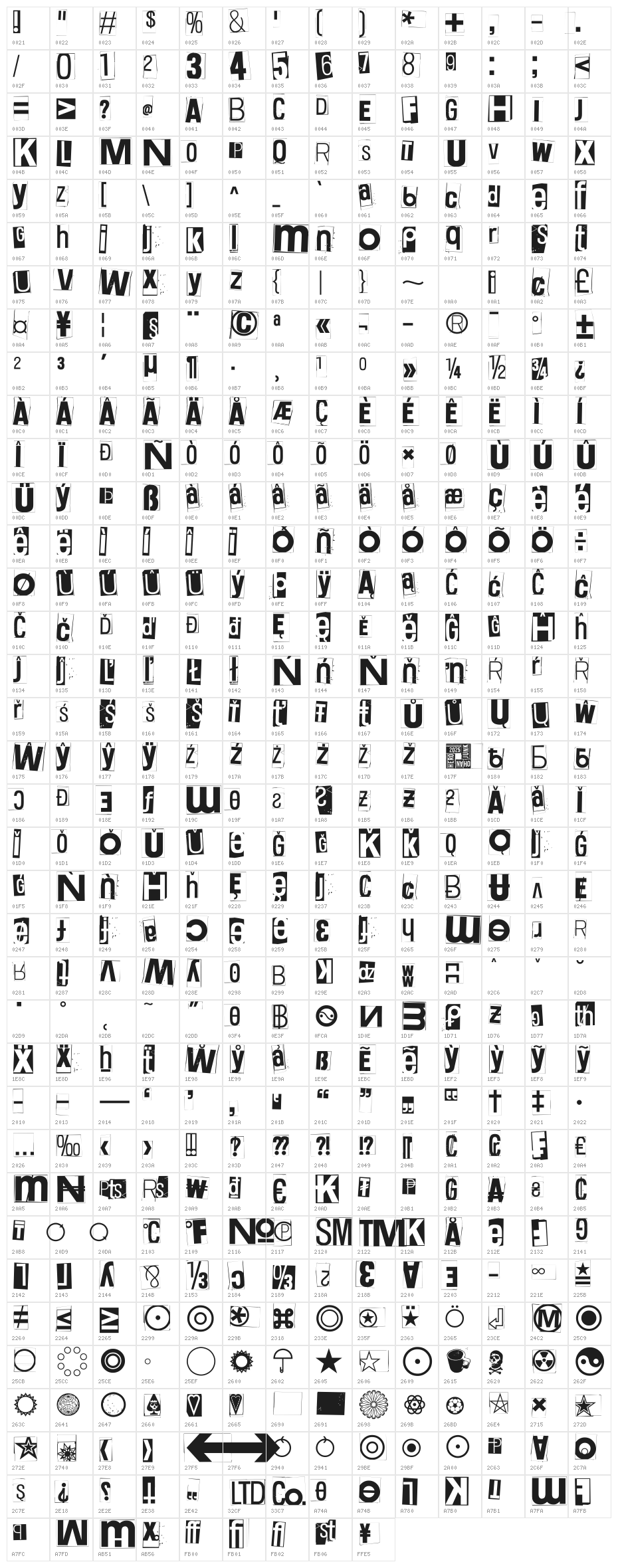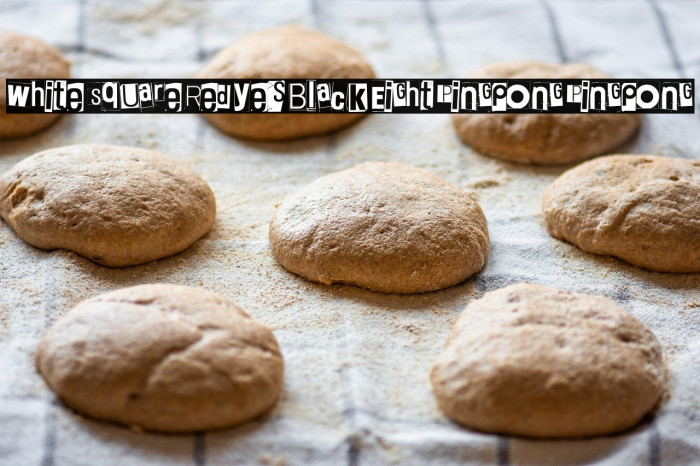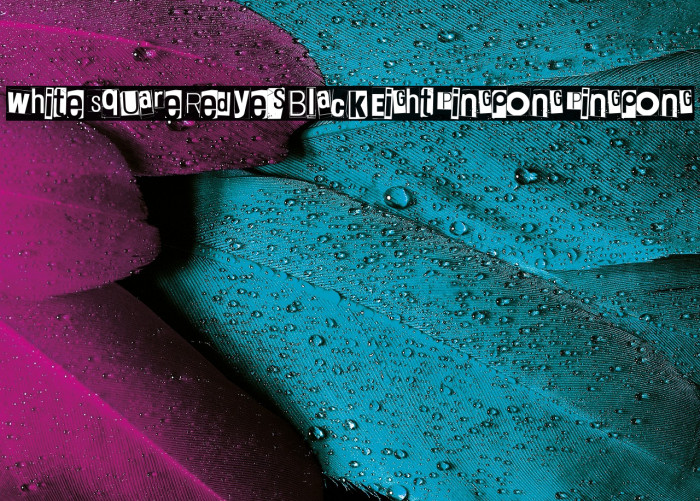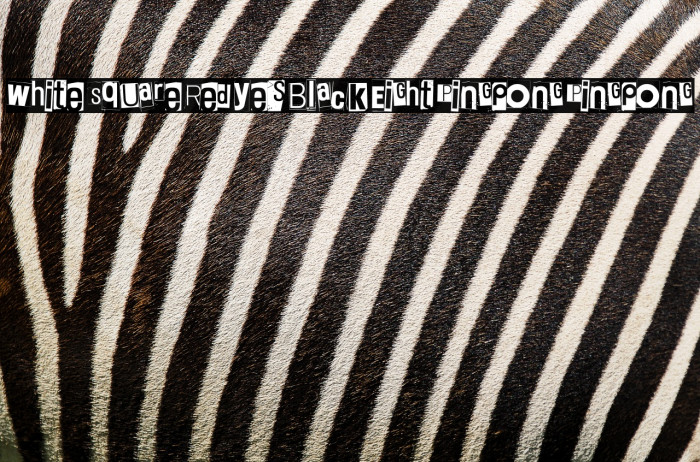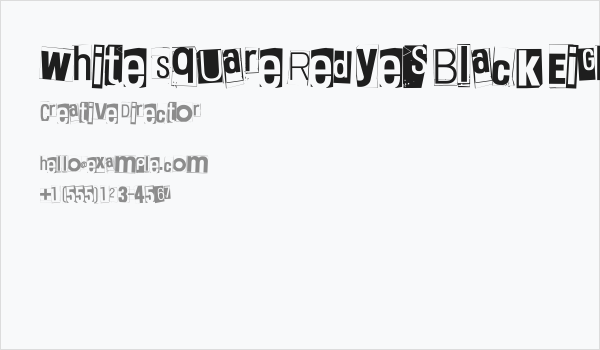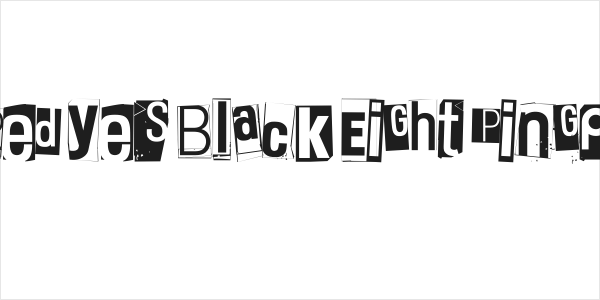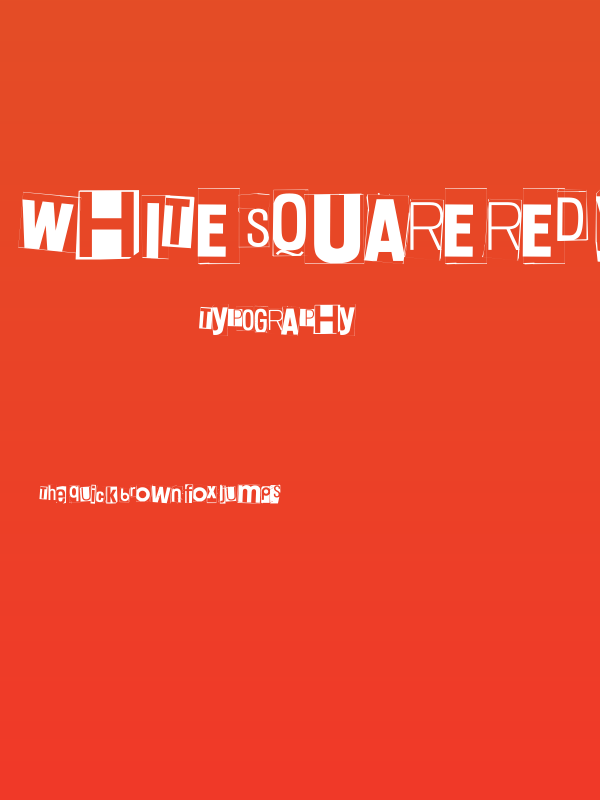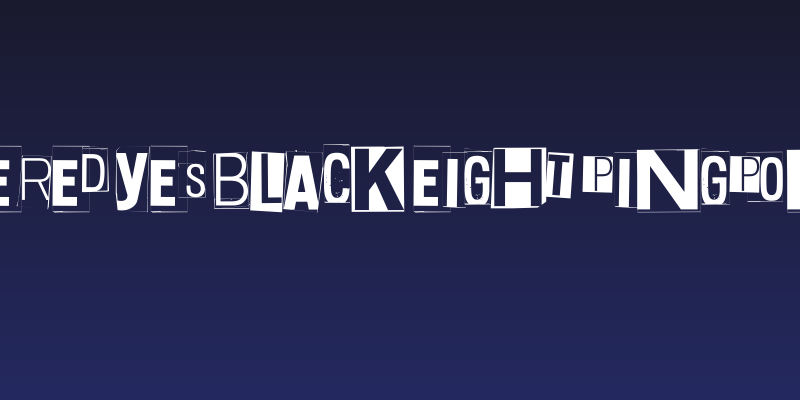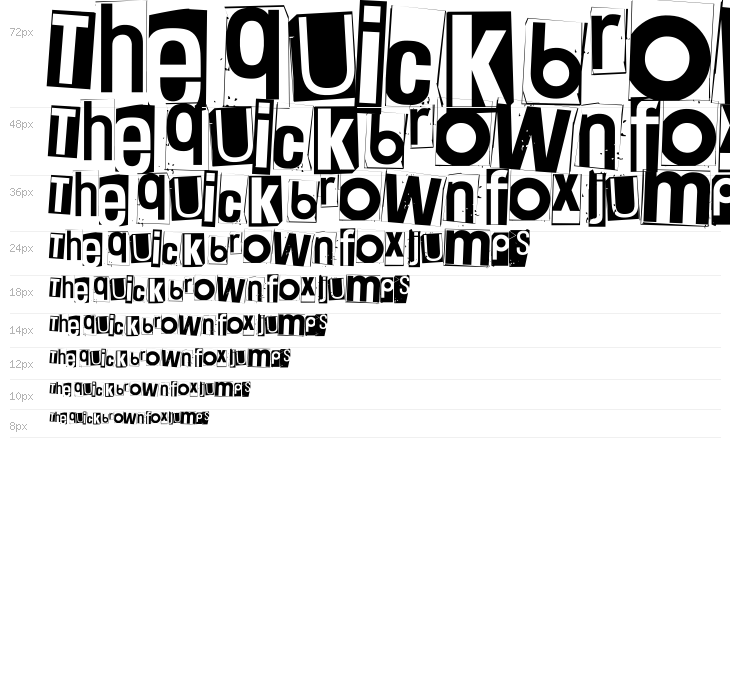
White Square Red Yes Black Eight Pingpong Font
White Square Red Yes Black Eight Pingpong Description
A playful and eclectic font with a collage-like appearance, featuring letters cut from various sources with different styles and weights.
| Proposed Projects | Posters, album covers, creative projects. |